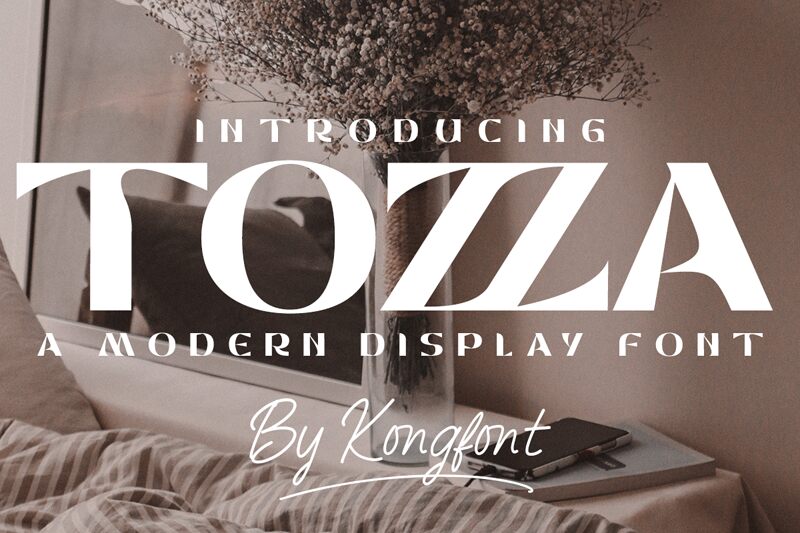
Tozza font by Kong Font is a strong expanded serif font with a geometric influence. The modern aesthetic and sophisticated mood are ideal for conveying professionalism, elegance, and exclusivity. With its extremely bold form, Tozza leaves a powerful impression that’s hard to ignore.
Use it in any project requiring maximum attention such as logo design, headlines, printed packaging or posters. Social media posts can also benefit from its presence alongside website headers and branding materials of all sorts.